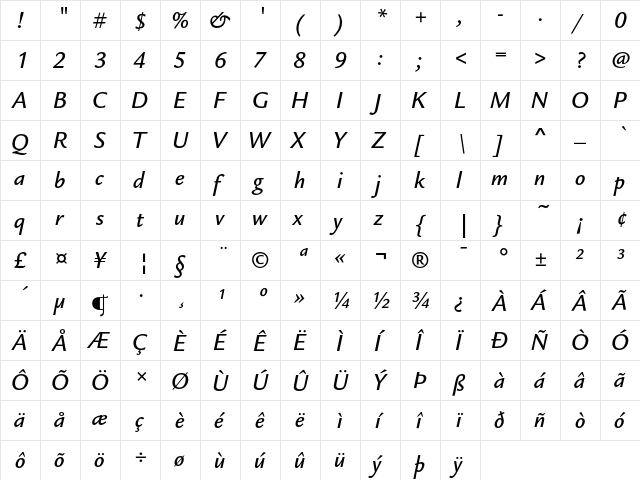
ITC Legacy Sans Medium Italic
Design Context for ITC Legacy Sans Typeface
ITC Legacy Sans is a composed and adaptable typeface that performs quietly and consistently across a wide range of design contexts. Its italic angle brings a sense of urgency and motion to the letterforms.
Pro Tip: Try ITC Legacy Sans for annotation and caption copy alongside an upright companion — the contrast in angle creates a dynamic but ordered typographic system.